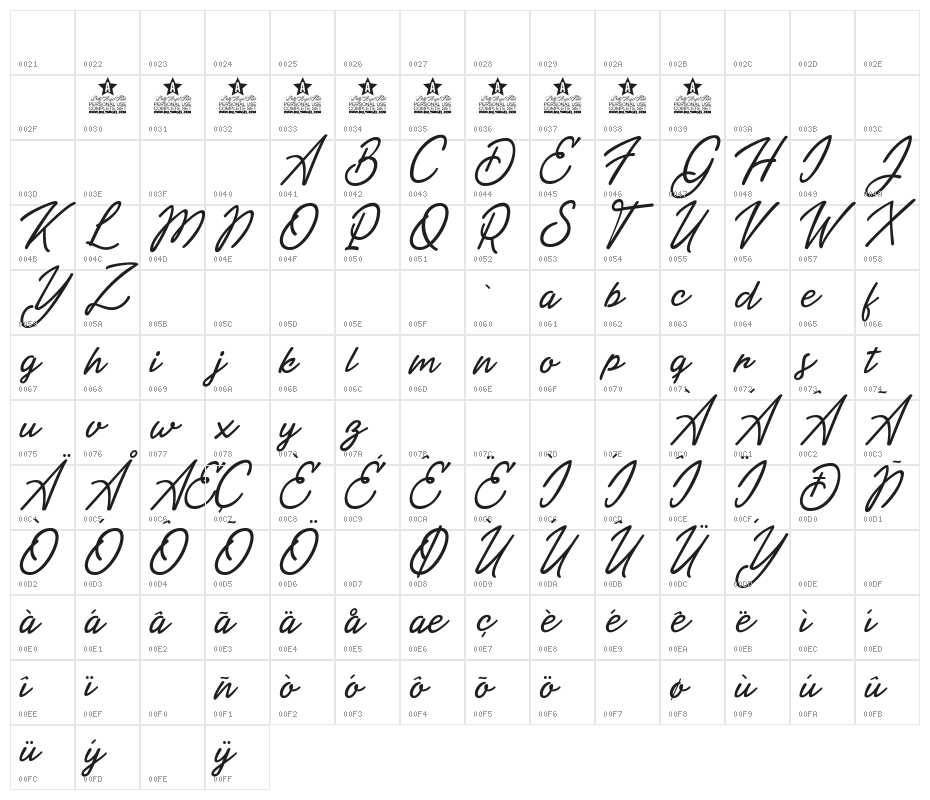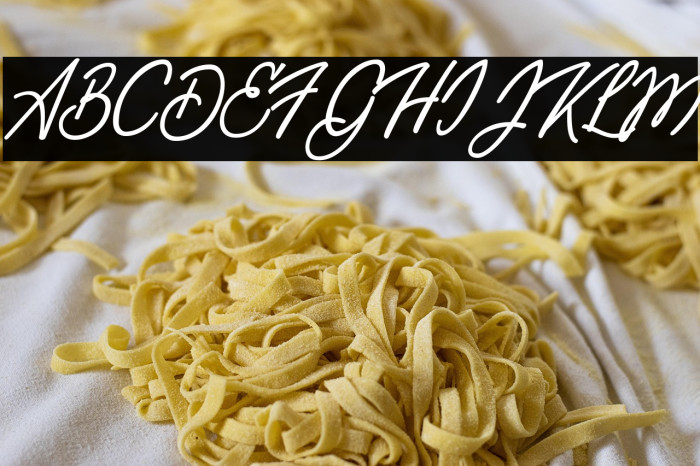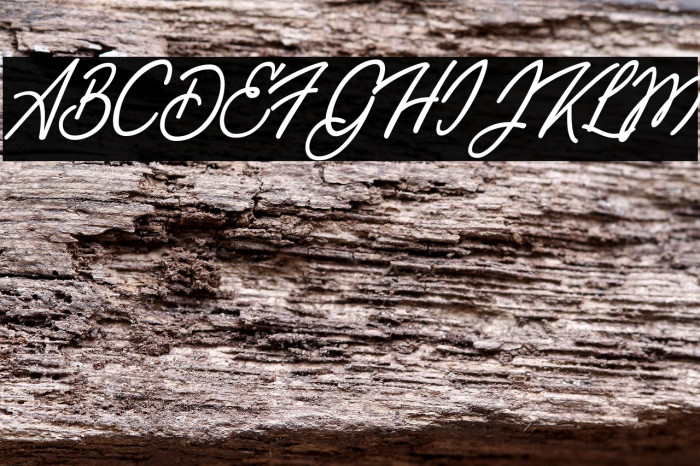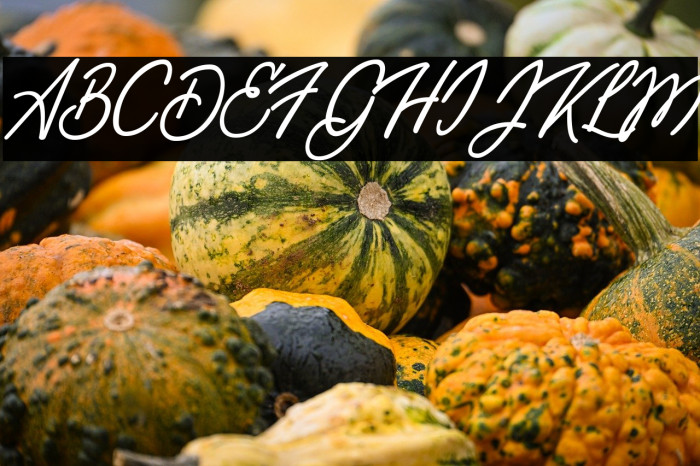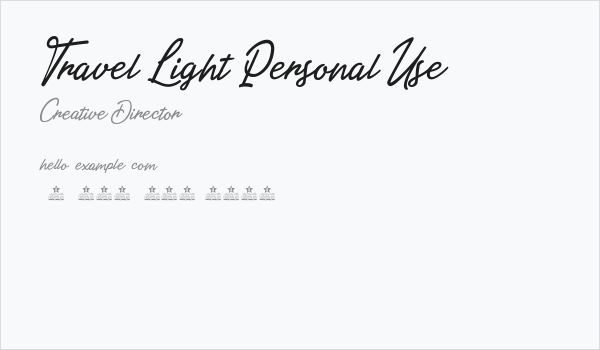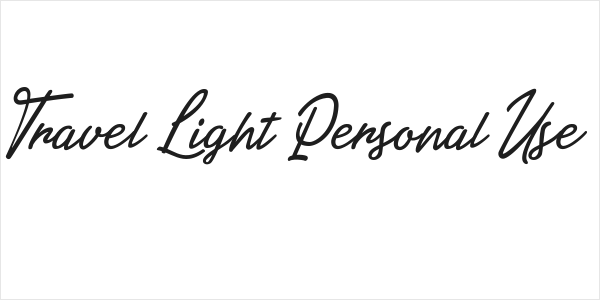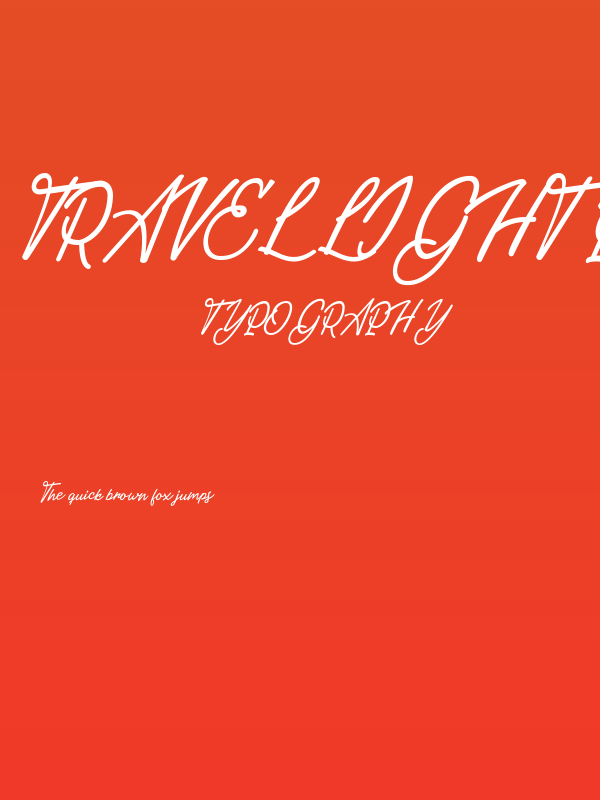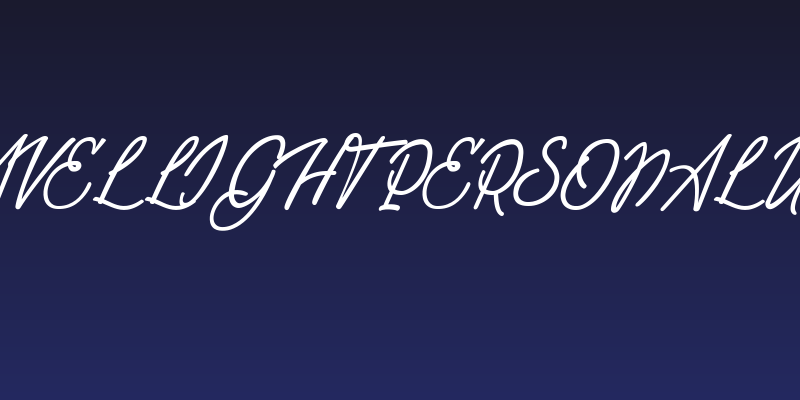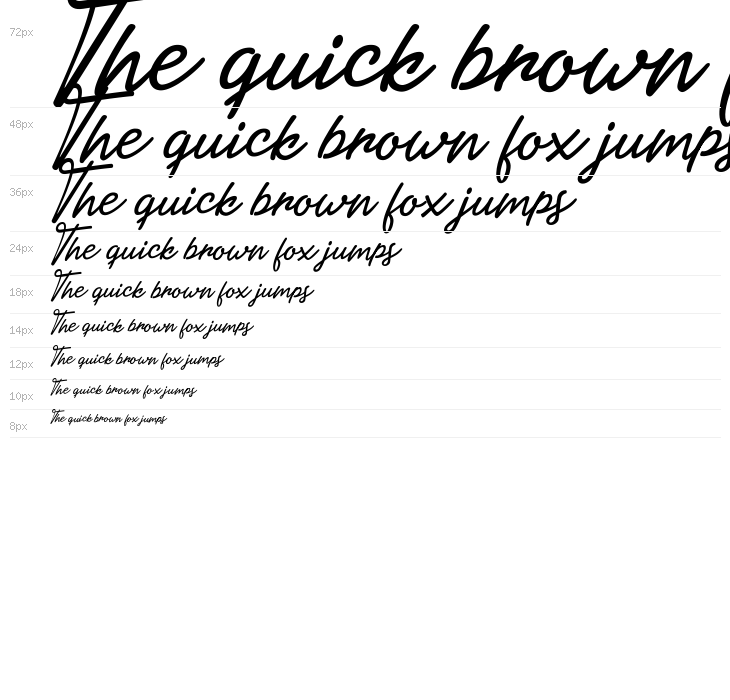
Travel Light Personal Use Font
Travel Light Personal Use Description
This font features a flowing, cursive style with elegant, sweeping lines that convey a sense of movement and grace. The uppercase letters are bold and slightly slanted, giving them a dynamic appearance. The lowercase letters maintain a consistent flow, with smooth connections between each character, enhancing readability while preserving the script's artistic flair. The numbers and special characters are designed to match the overall aesthetic, ensuring a cohesive look across all text elements. This font's design is both modern and timeless, making it versatile for various applications.
| Overall Style | Elegant, Decorative |
| Proposed Projects | Ideal for wedding invitations, elegant branding, personal stationery, and decorative signage. |